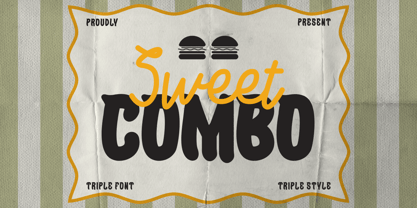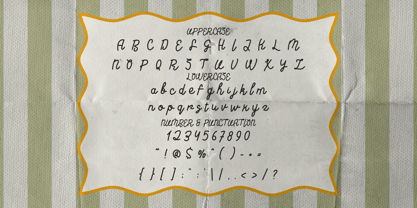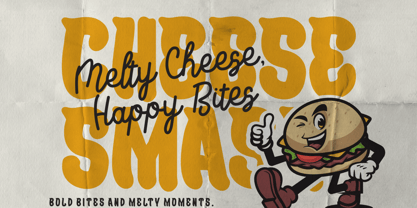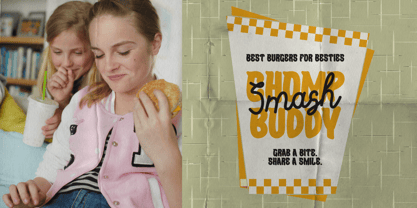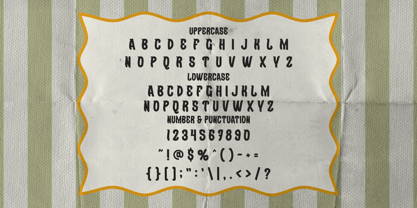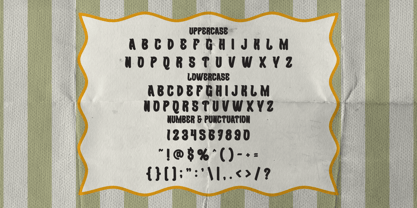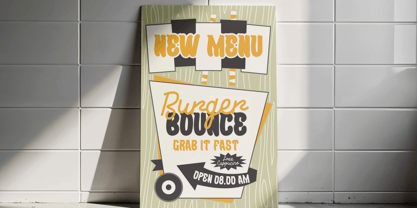
Sweet Combo
Die Schriftfamilie Sweet Combo wurde von Yesie Erma Yunita entworfen und von Shanaf veröffentlicht. Sweet Combo enthält 3 Stile und Familienpaketoptionen. Mehr über diese Familie
Sweet Combo Duo Font is a versatile typeface that blends bold display letterforms with a smooth script companion. The display characters appear thick, rounded, and sturdy, creating a strong visual anchor for headlines. Each letter feels wide and balanced, with consistent stroke weight that enhances readability. The shapes look soft yet confident, giving the font a warm and approachable tone. The script style adds contrast through flowing strokes and natural curves. Its lines feel fluid, relaxed, and slightly playful, which brings personality to supporting text. Together, both styles create a harmonious pairing that feels intentional and well-structured. Sweet Combo Duo Font allows designers to mix emphasis and expression without losing consistency. The combination feels friendly, bold, and timeless, making it suitable for many creative directions. In terms of style, Sweet Combo Duo Font fits branding projects that need charm and clarity at the same time. It works well for logos, advertisements, posters, headlines, and product packaging. The bold style grabs attention quickly, while the script style adds warmth and storytelling. Designers can also apply this font to greeting cards, invitations, stickers, book covers, magazine titles, and film titles. It supports food brands, lifestyle businesses, creative studios, and small businesses that value personality. Sweet Combo Duo Font helps messages feel human, welcoming, and memorable. The duo structure saves time by providing contrast within one font family. Sweet Combo Duo Font gives creative projects flexibility while maintaining a cohesive visual identity across print and digital media.